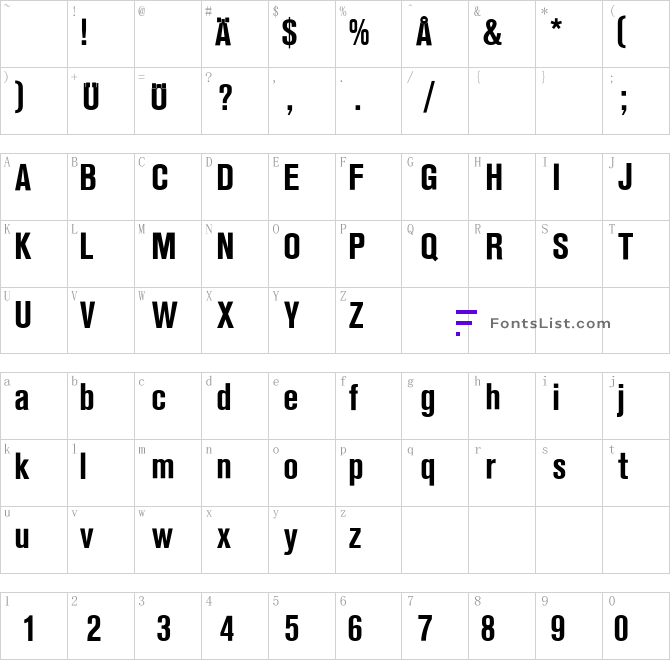
- Font Name:Sh Ad Grotesk DemiBoldCond
AD-GrotDemi-BdCon-.ttf is a very beautiful artistic font, AD-GrotDemi-BdCon-.ttf is widely used in the design and printing of various books and pictures,AD-GrotDemi-BdCon-.ttf has a strong visual impact,AD-GrotDemi-BdCon-.ttf is a commonly used font in newspapers, magazines and books, and is used in posters, e-commerce Poster design, store design, logo design, font design and other fields.AD-GrotDemi-BdCon-.